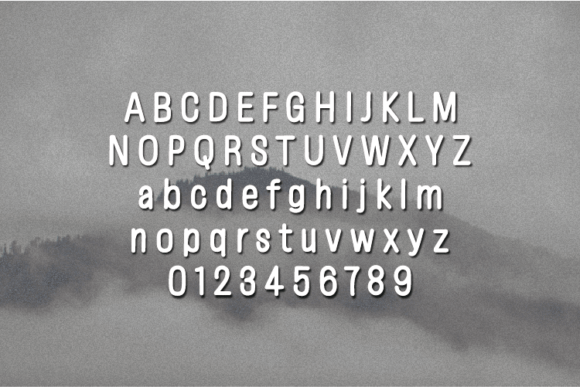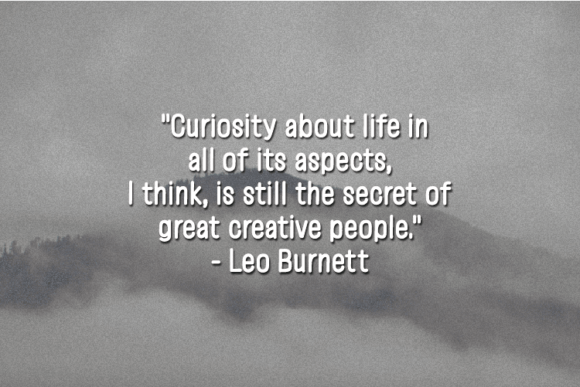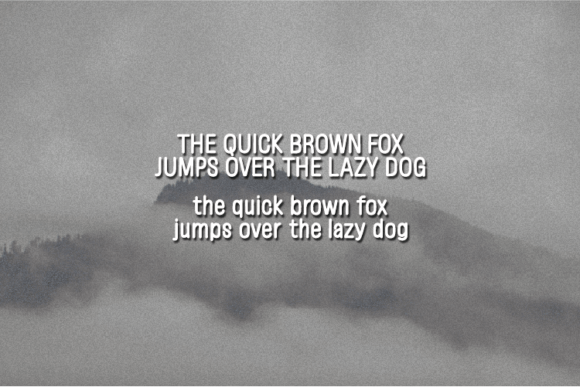
Introducing Handwrite Font: The Unique Sans Serif for Creative Designs
In the world of typography, a font can make or break a design. For designers and crafters, finding the perfect font that adds a personal touch to their work can be a daunting task. This is where Handwrite Font comes in – a natural sans serif font that stands out from the rest due to its distinctive feature: not changing a single node in each character’s indentation. This unique characteristic makes Handwrite Font a game-changer for creative projects, and in this article, we’ll dive into what makes it so special.
The Story Behind Handwrite Font
Handwrite Font is a carefully crafted typeface that embodies the essence of handwritten text, but with a twist. Unlike traditional handwritten fonts, Handwrite Font maintains a consistent sans serif style while incorporating the natural imperfections of handwriting. This is achieved by preserving the original indentation of each character, giving the font a genuine, organic feel.
What Makes Handwrite Font Unique?
The standout feature of Handwrite Font is its unwavering commitment to preserving the natural indentation of each character. This means that every letter, number, and symbol has a subtle yet distinctive irregularity, reminiscent of handwritten text. This unique trait sets Handwrite Font apart from other sans serif fonts, making it perfect for designs that require a personal touch.
Perfect for Quotes, Notes, Tees, and More
• Quotes: Add a touch of elegance and personality to inspirational quotes, making them perfect for social media posts, posters, or flyers.
• Notes: Use Handwrite Font to create visually appealing notes, to-do lists, or journal entries that stand out from the ordinary.
• Tees: Design custom t-shirts, hoodies, or hats with Handwrite Font for a unique and eye-catching look.
• Product Design: Incorporate Handwrite Font into your product design, packaging, or branding for a distinctive and memorable look.
Why Designers and Crafters Love Handwrite Font
• Uniqueness: Stand out from the crowd with a font that offers a fresh, distinctive look.
• Versatility: Use Handwrite Font across various design projects, from digital to print.
• Ease of use: Handwrite Font is easy to read and works well in various contexts, making it perfect for both beginners and experienced designers.
Font Name Handwrite Font
Author Hanna Bie
Handwrite Font is a game-changing sans serif font that offers a unique blend of natural imperfections and clean design. Its versatility, ease of use, and distinctive features make it perfect for designers and crafters looking to add a personal touch to their work. Whether you’re creating quotes, notes, tees, or product designs, Handwrite Font is sure to elevate your designs and set you apart from the crowd.